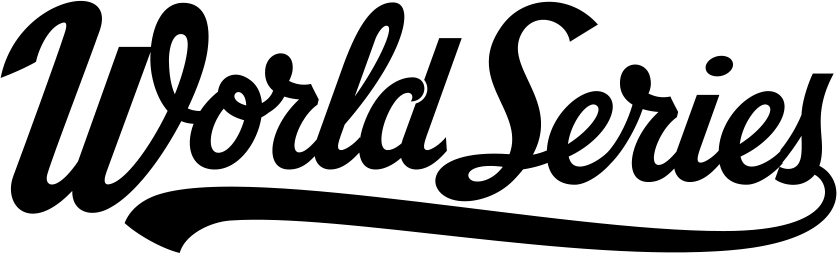
World Series Font
If you’re looking for an engaging old-school font, then you should consider utilizing World Series! What makes this particular font special compared to others is the bold, classy, hand-drawn characters that also have a baseball font style to their design.
The letterforms offered by World Series are mixed case alphabets and punctuation but the set of numbers are not included. It’s best to carry out World Series for clothing, branding, match flyers, banners, and wherever you want a retro feel.
Example: Baseballer_
Use multiple underscores to make swashes of different lengths.